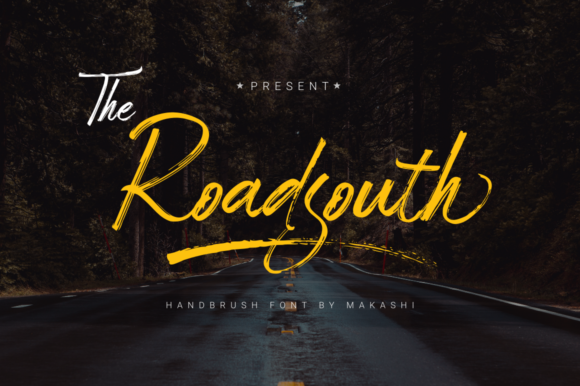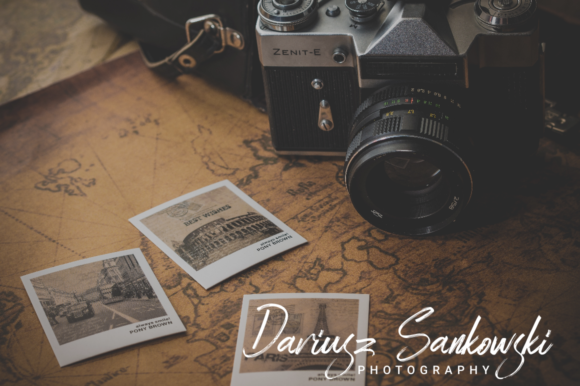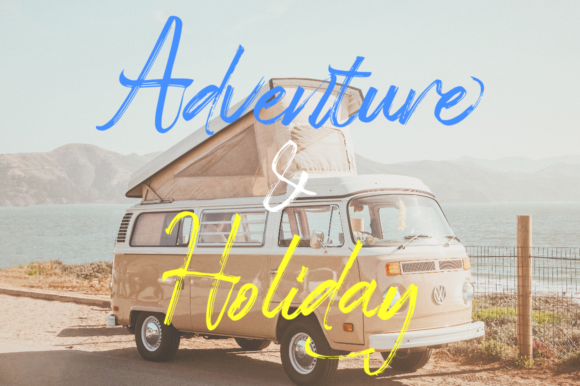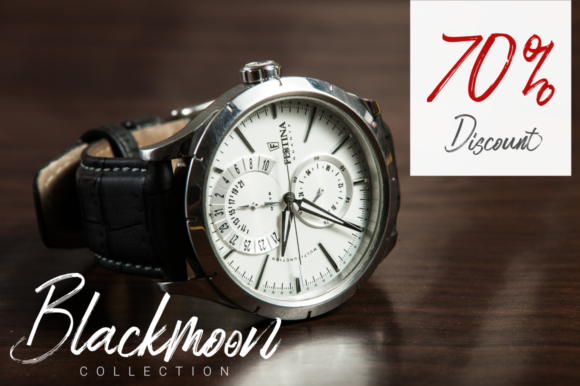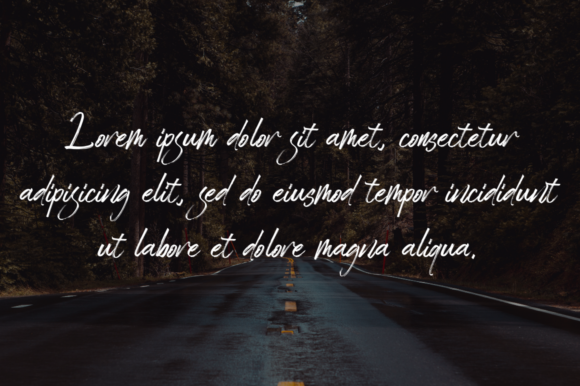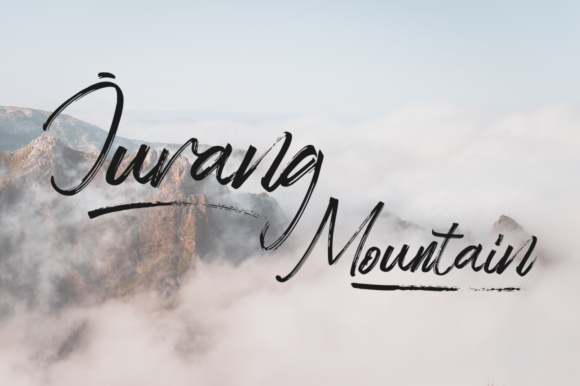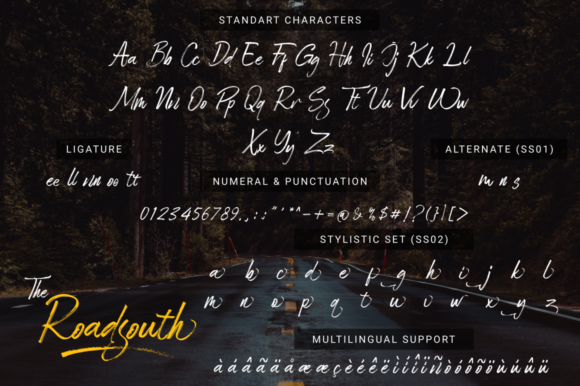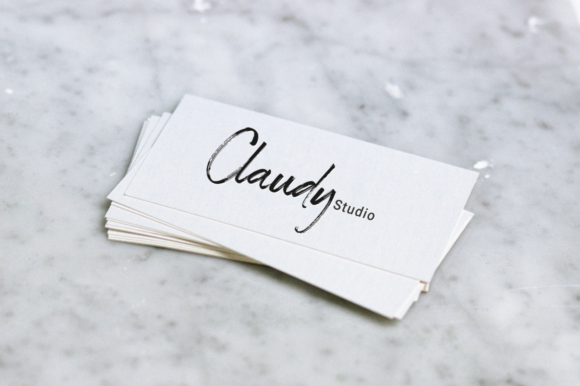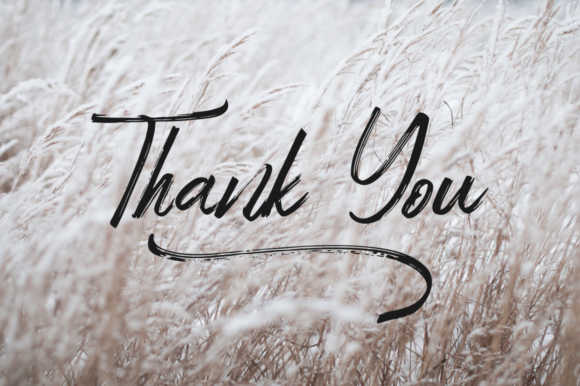
HomeScript FontsRoadsouth Font Script Fonts Roadsouth Font FacebookXPinterestWhatsApp Roadsouth Font Poster 2 Roadsouth Font Poster 3 Roadsouth Font Poster 4 Roadsouth Font Poster 5 Roadsouth Font Poster 6 Roadsouth Font Poster 7 Roadsouth Font Poster 8 Roadsouth Font Poster 9 About Roadsouth Font Roadsouth is a beautiful and bold handwritten font, full of authenticity. Get inspired by its contemporary feel. DOWNLOAD ON CREATIVE FABRICAThis font is sold and delivered by Creative Fabrica. Font Canyon may earn a commission if you buy through this link. People also explored Sylvia Bedgan Farmhouse Font Sketchthiny Font Grethol Font Lennox | Vintage Script Font Felicity Font Geshana Font Galantis Font 406 0 TagsRoadsouth Font Previous articleLetsdy FontNext articleMarienkaefer Font LEAVE A REPLY Cancel reply Comment: Please enter your comment! Name:* Please enter your name here Email:* You have entered an incorrect email address! Please enter your email address here Website: Save my name, email, and website in this browser for the next time I comment. Personal Use Free Adeline Personal Use Free Read more about this font Fakedes Personal Use Free Read more about this font Shrag Script Personal Use Free Read more about this font Adelfa Personal Use Free Read more about this font BLOG Using Fonts in Digital Marketing: Tips to Strengthen Your Brand Identity In the realm of digital marketing, every visual element plays a crucial role in shaping a brand's identity, and fonts are no exception. The... Transform Your Website: Elevate Your Typography with 7 Best Web Font Generators Free Fonts Risk: Why Free Fonts Can Be Dangerous for Designers Elegant Wedding Invitation Fonts – Handwritten & Script Fonts